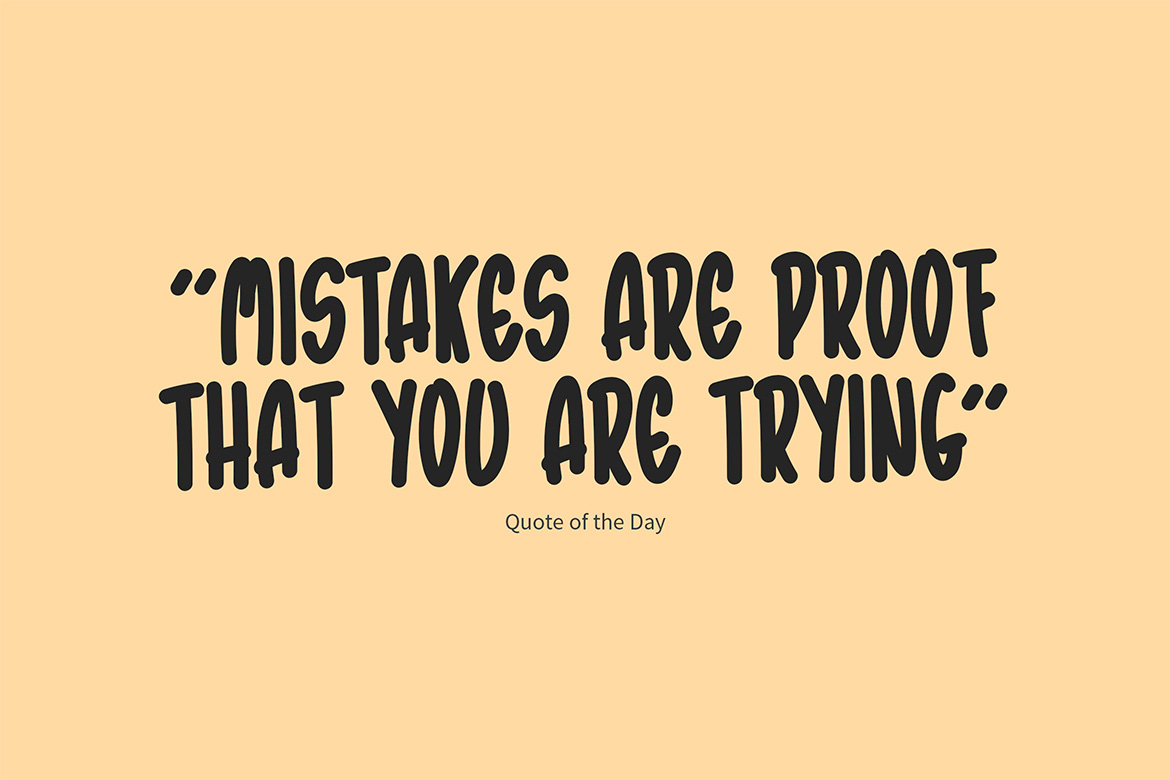
Introducing Ratatoileys – Font Handwritten by KrakenBox
Ratatoileys is a handwritten font. Fall in love with its incredibly versatile style and use it to create beautiful designs!
**Ratatoileys is best for:**
– logos, branding, & Signatures.
– Flyers, Album cover, Magazine, & Advertisements.
– Website design , design blogs, & fashion.
– Quote graphics for social media.
– and also it works great for other projects.
– Character Set (Uppercase and Lowercase)
– Numerals and Punctuation (OpenType Standard)
– Accents (Multilingual characters)